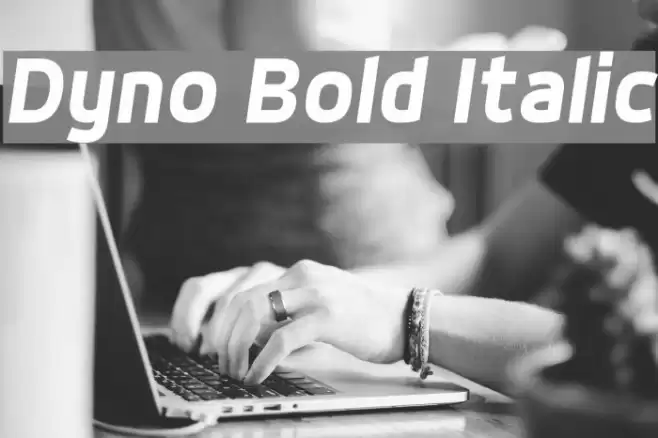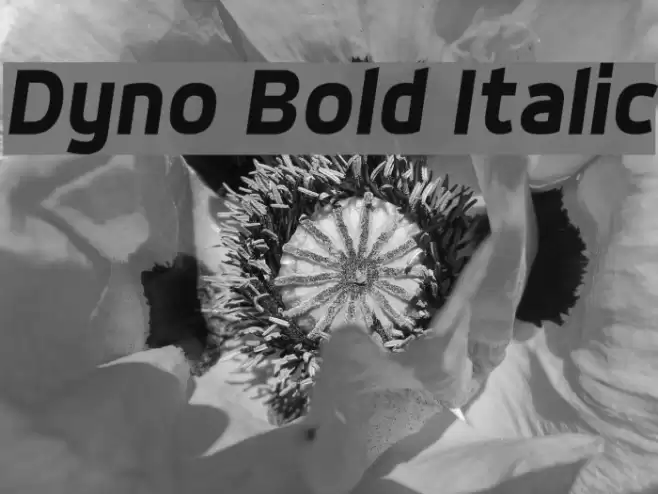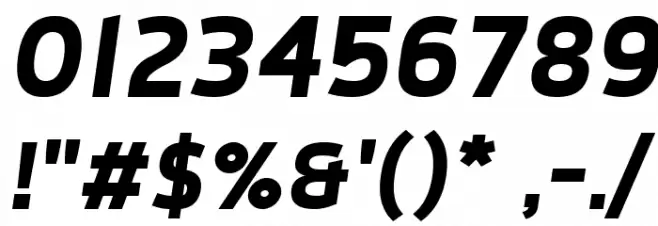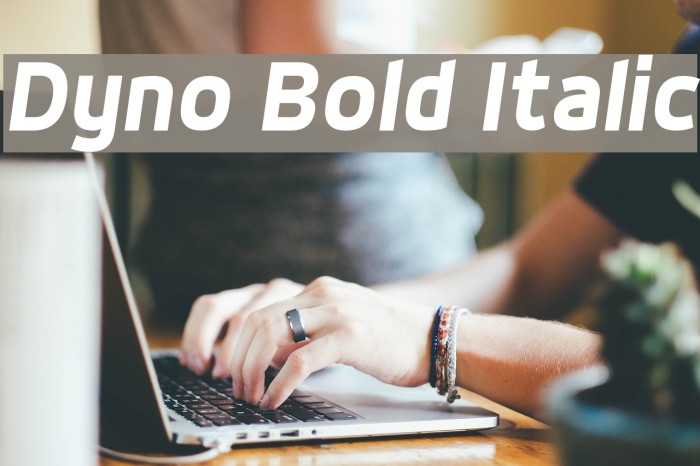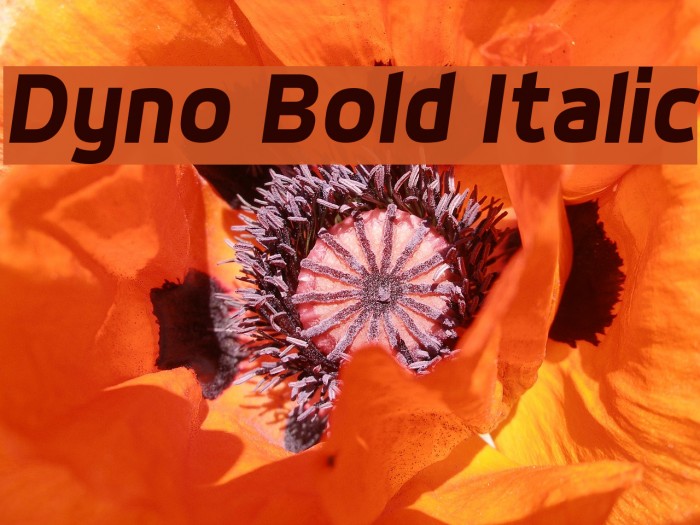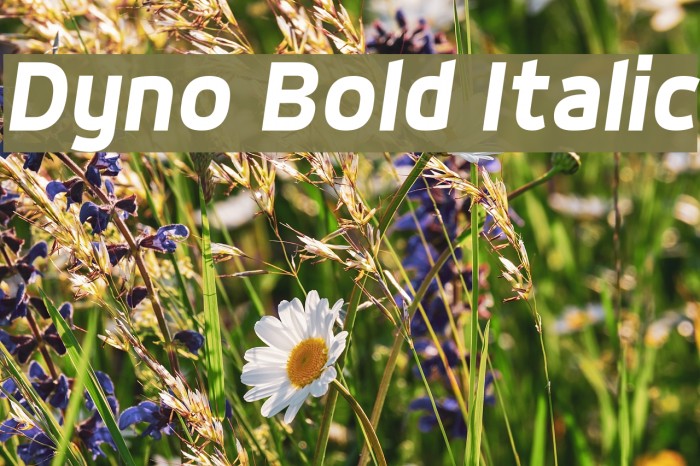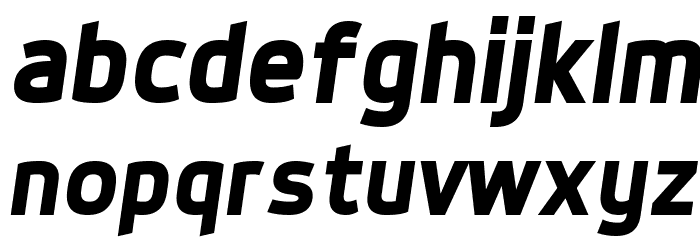
Dyno Bold Italic Font
Dyno Bold Italic Description
This font exhibits a bold and dynamic style with a pronounced italic slant, giving it a sense of motion and energy. The characters are robust and well-defined, featuring a sans-serif design that emphasizes clarity and modernity. The uppercase and lowercase letters maintain a consistent weight, ensuring readability across different sizes. The numerals are equally bold, making them suitable for impactful displays. Special characters are included, maintaining the font's cohesive style. This font is ideal for projects that require a strong, contemporary look.
A bold, italic sans-serif font with a dynamic and modern style from Uncategorized fonts.
- Proposed Projects: Ideal for branding, advertising, headlines, and any design requiring a bold, modern touch.
- Use Case: Headlines, Logos, Branding